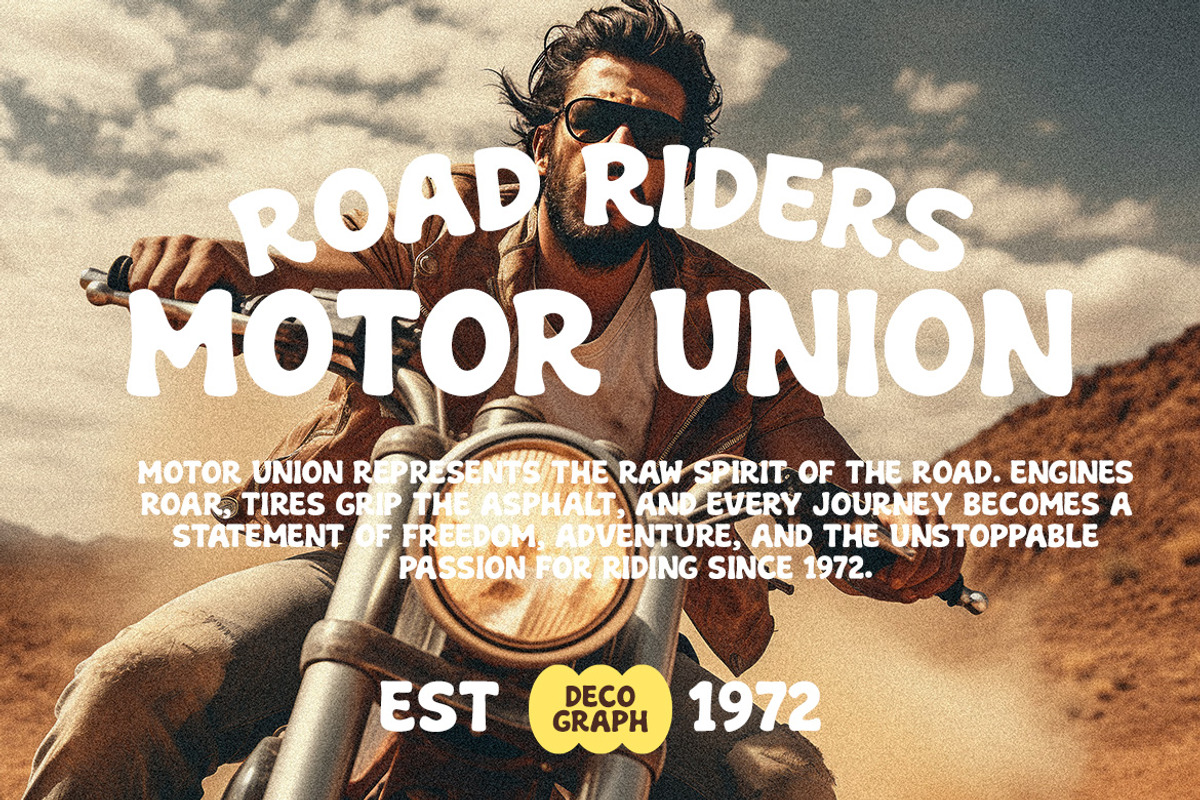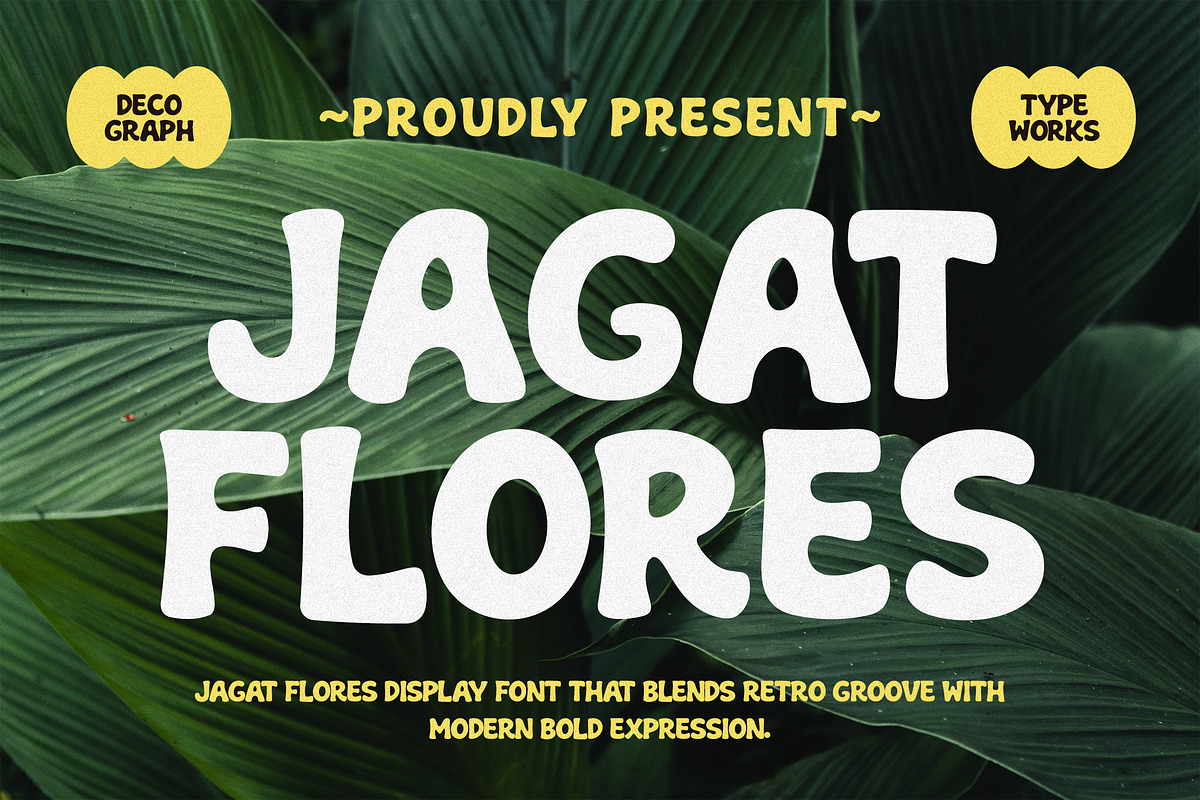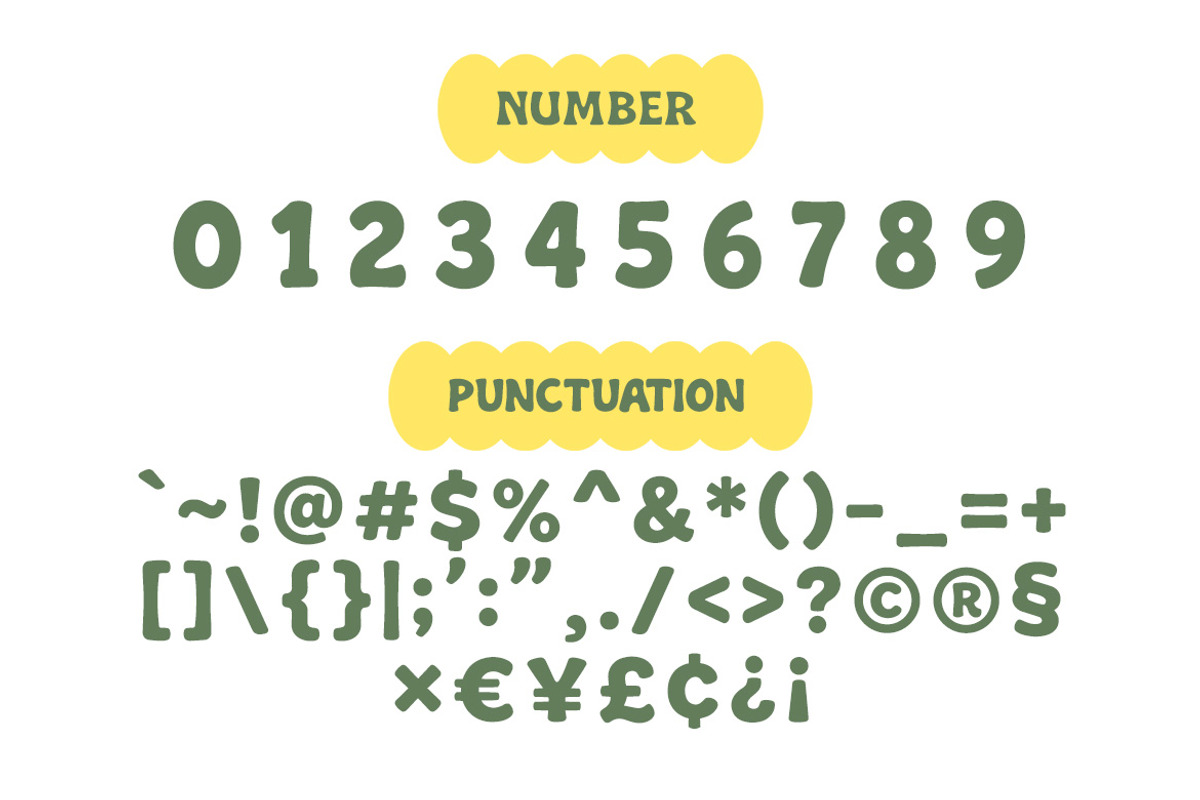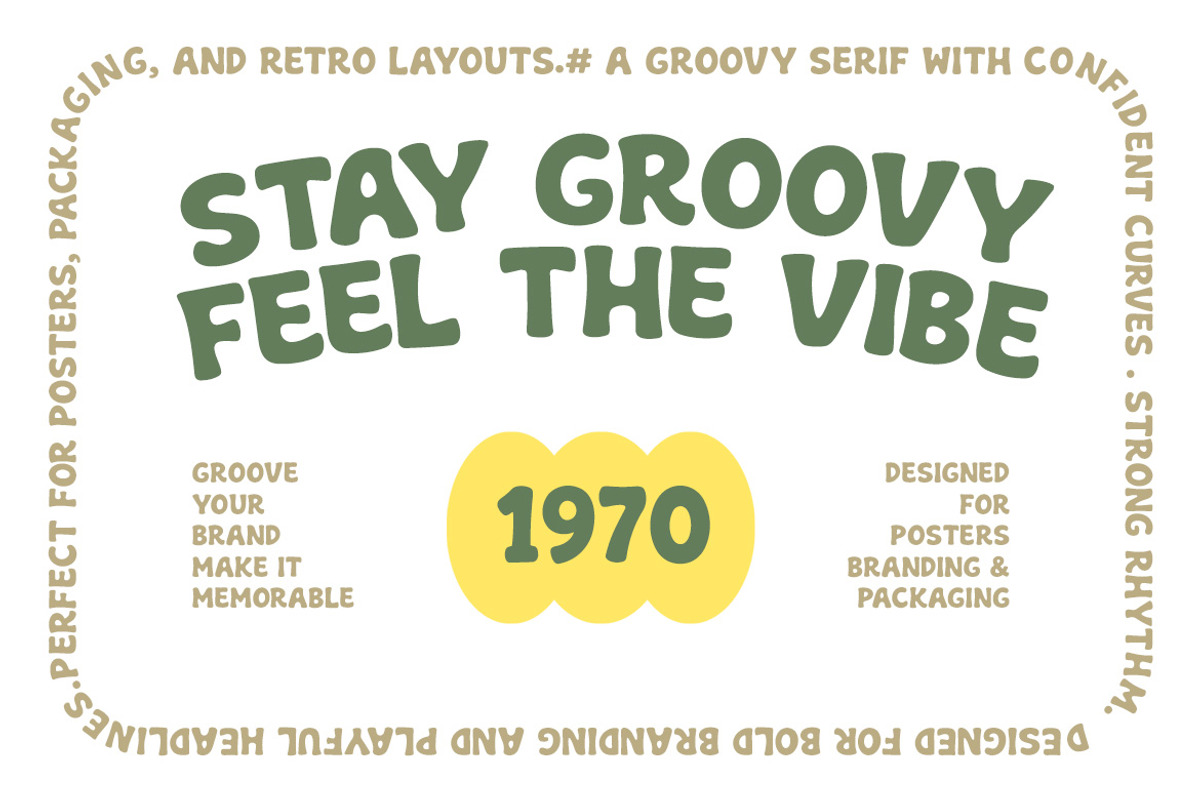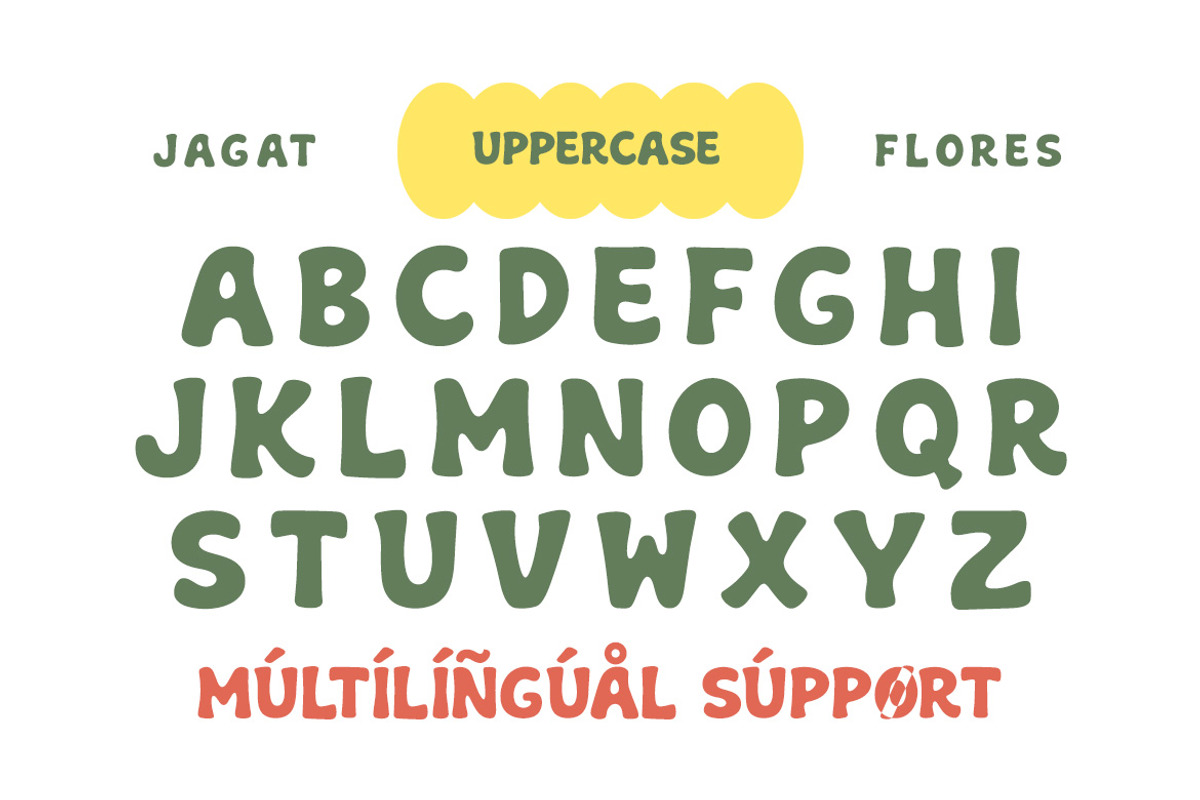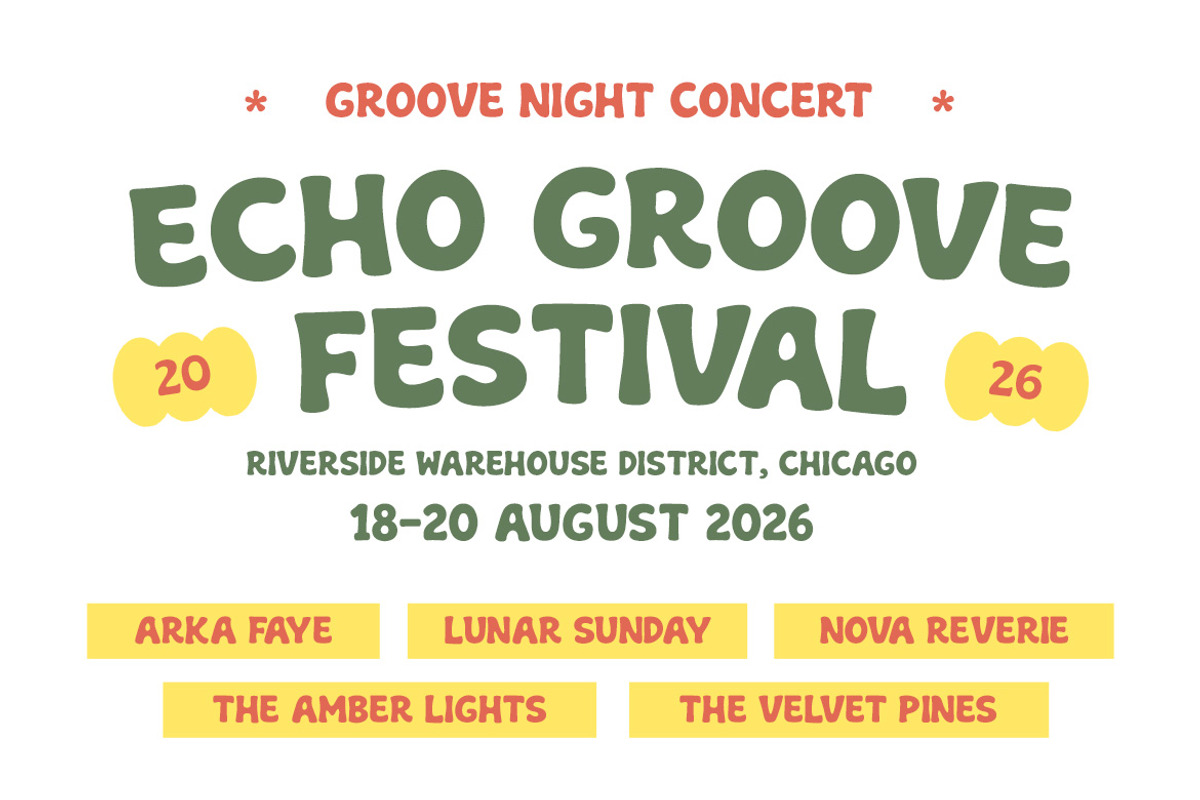
Jagat Flores – Bold Retro Display
Jagat Flores is a chunky, playful display font that captures the spirit of retro groove with a modern bold twist, featuring soft rounded edges, thick letterforms, and a friendly organic flow that feels both nostalgic and fresh. Its strong visual presence makes it perfect for eye-catching headlines, vibrant branding, packaging, posters, and social media graphics, especially for projects that aim to evoke warmth, fun, and a laid-back tropical or vintage vibe while still maintaining a clean and contemporary appeal.